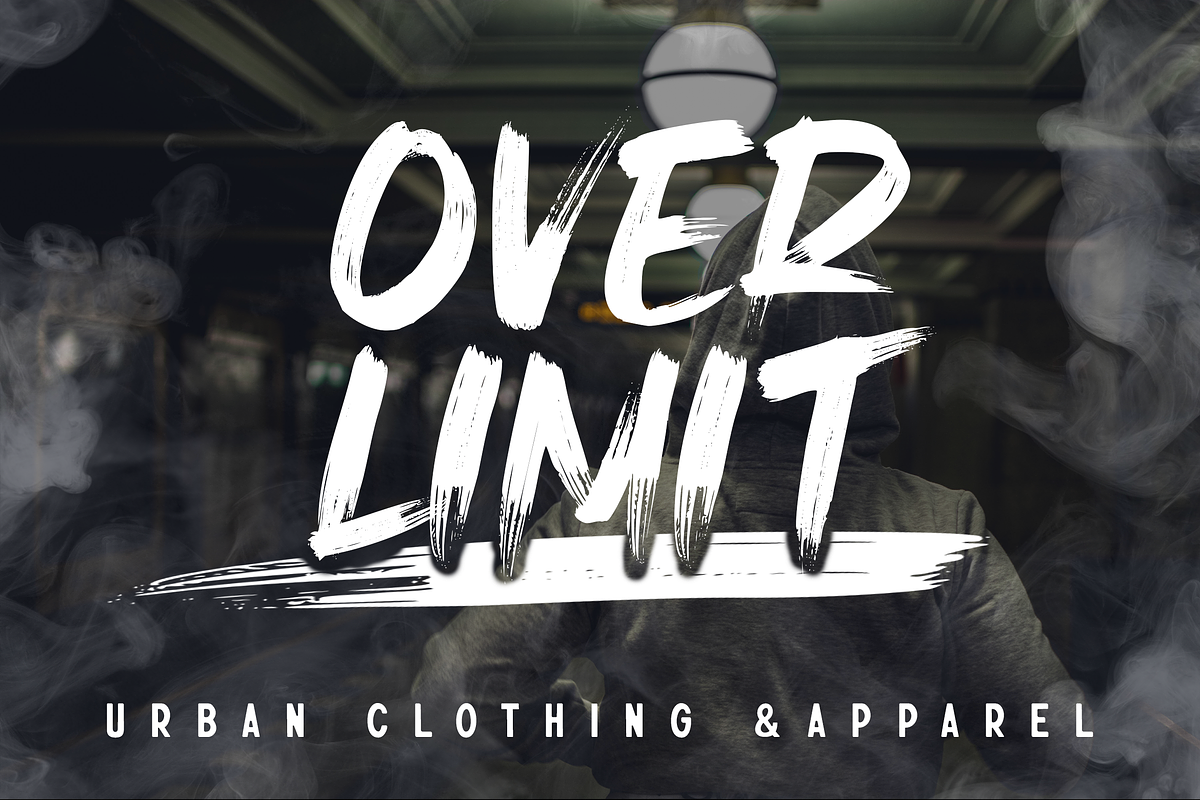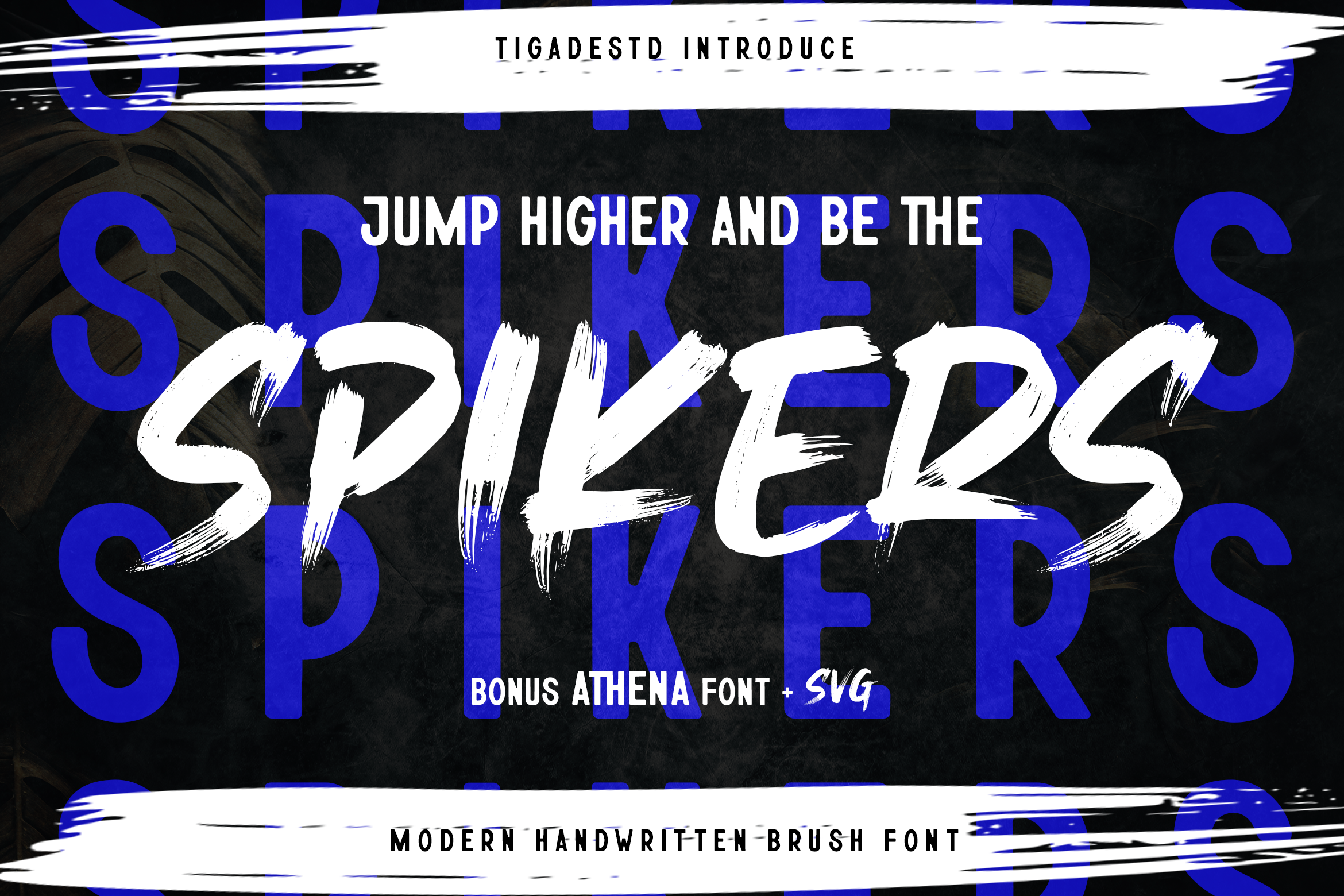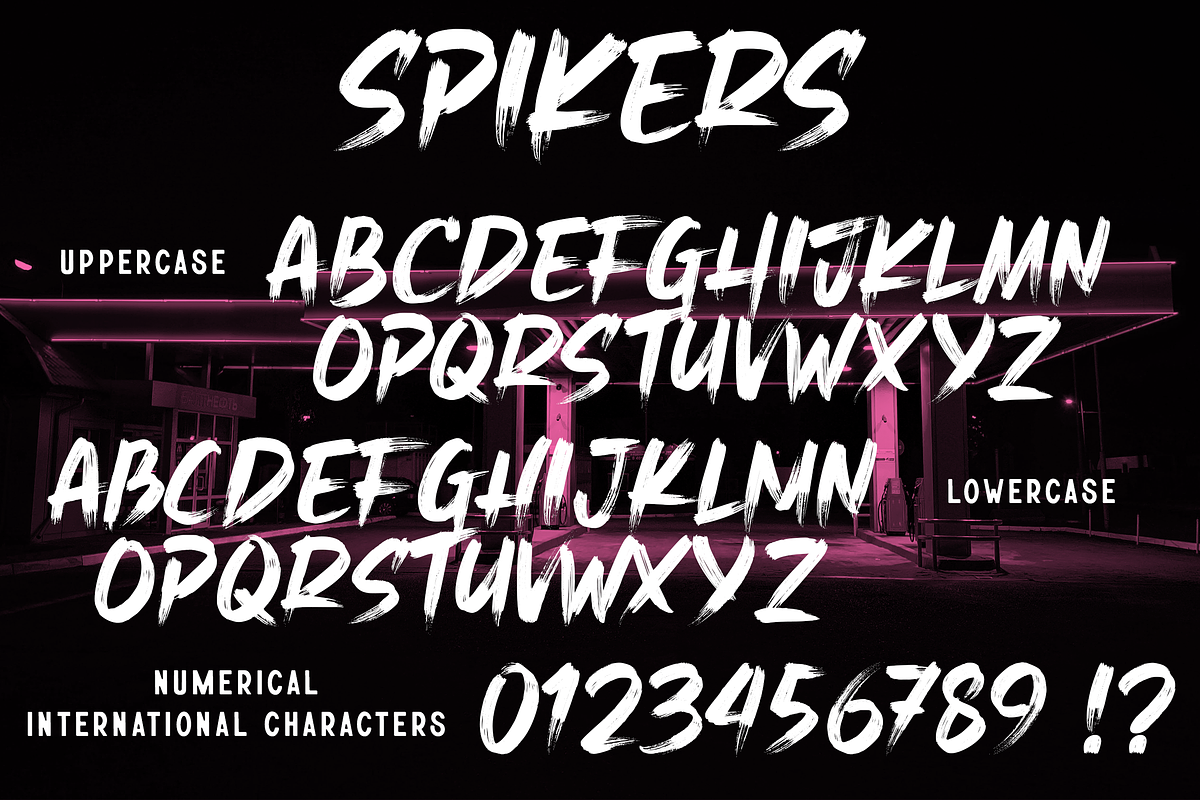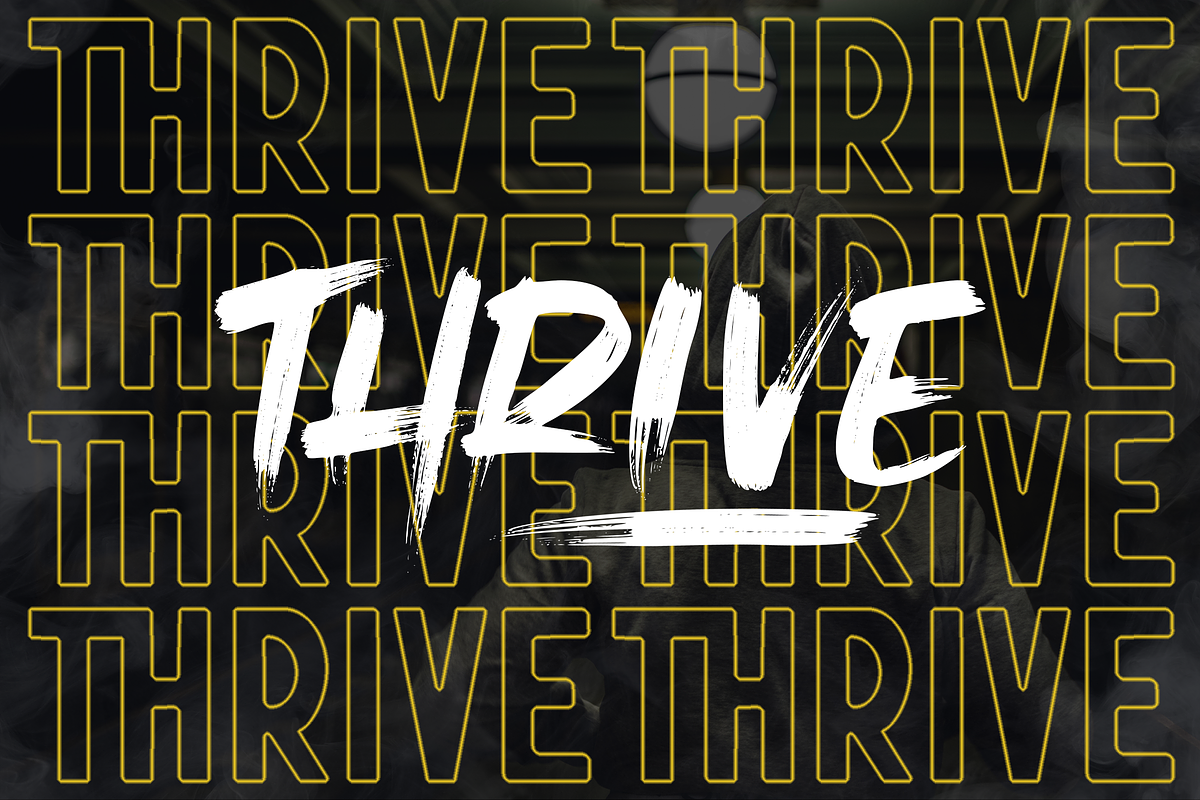
Spikers | SVG Realistic Brush Font
Introducing - SPIKERS a realistic brush fonts.
Spikers font preserves the detail of the original shape of the handwritten characters. It comes with the SVG font that will provide a realistic look of the Fonts. The SVG format requires Photoshop CC 2017 and above or Illustrator CC 2018 and above. The regular OTF/TTF format are also included.
With this font, you can enhance your design to the higher level with the realistic looks of the font. It suitable for many projects such as advertising, clothing business, game design, and many others that needs the touch of natural modern handwritten brush font.